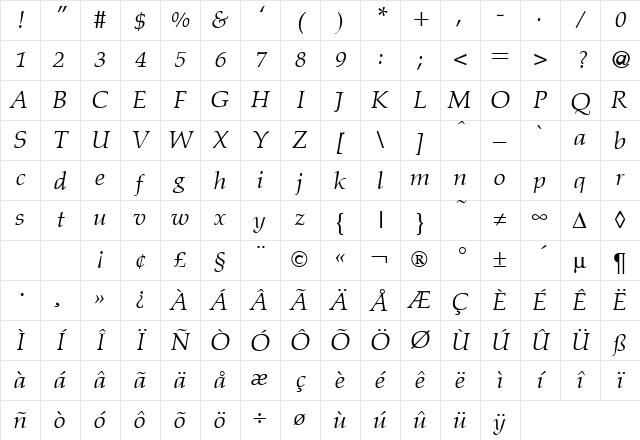
PalazzoWerk RegularItalic
Design Context for PalazzoWerk
PalazzoWerk is a composed and adaptable typeface that performs quietly and consistently across a wide range of design contexts. The slanted form adds forward momentum and visual energy.